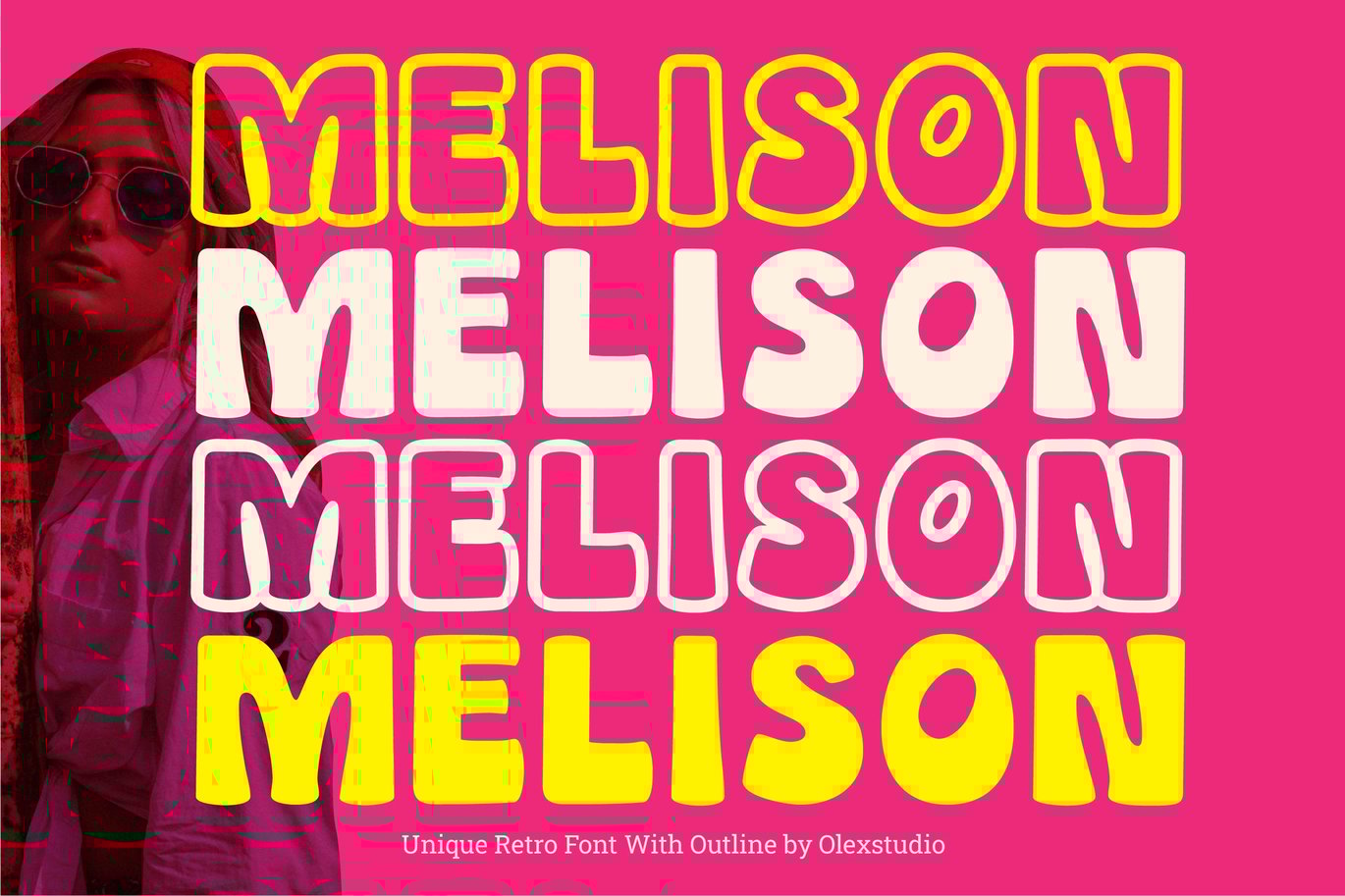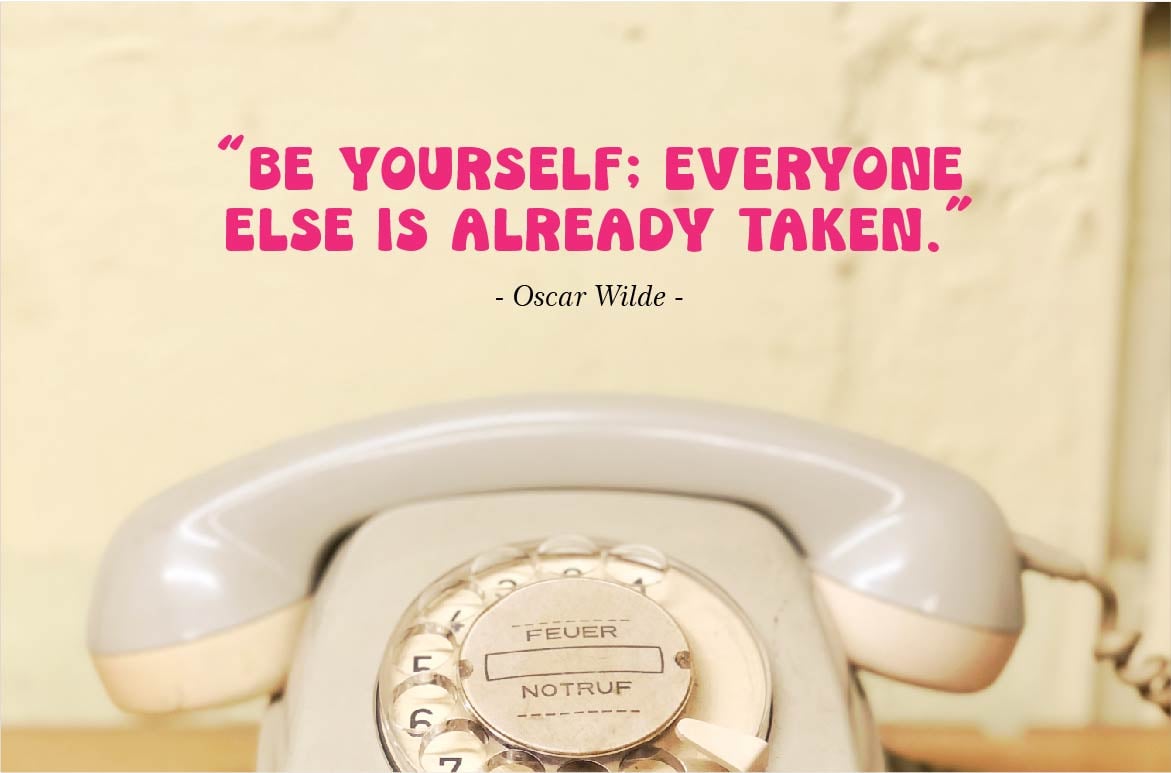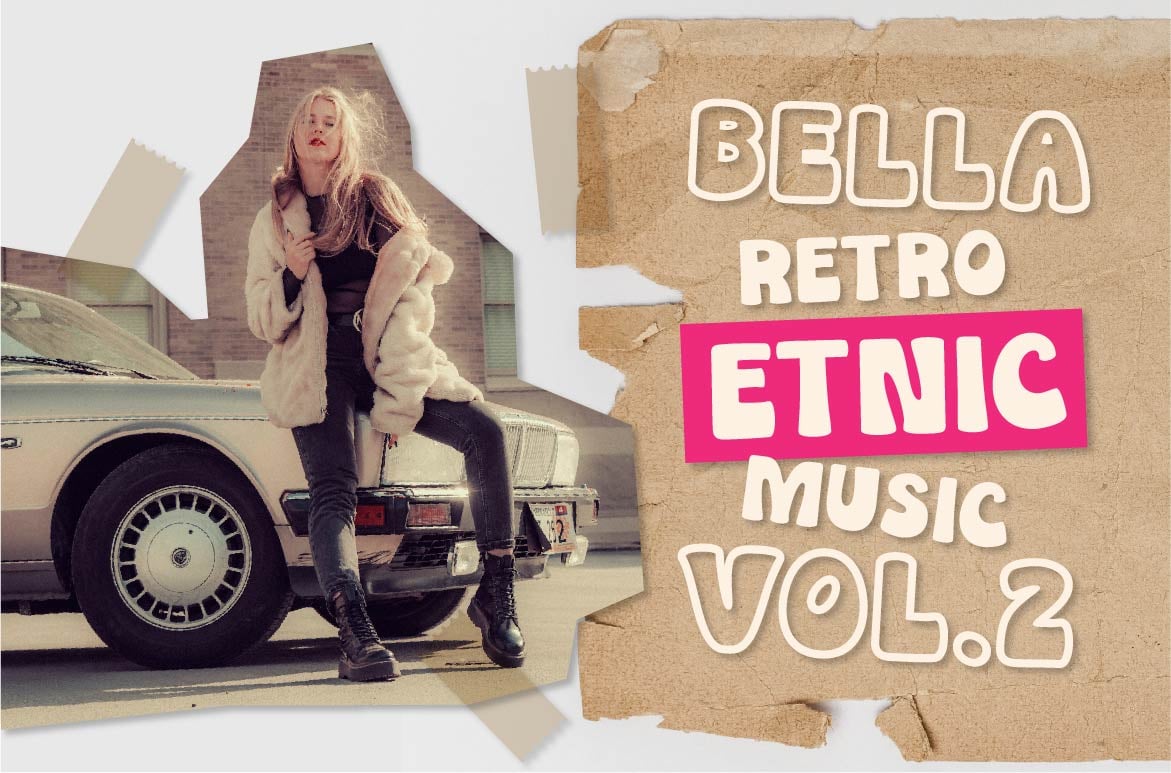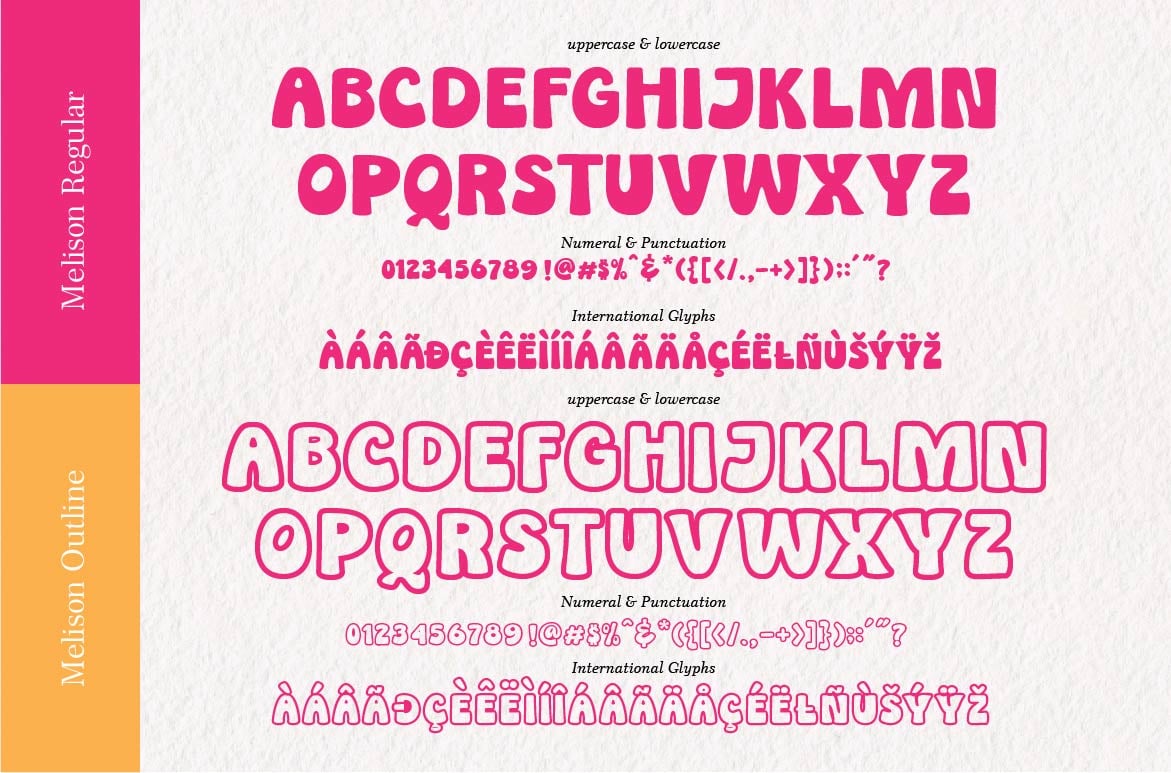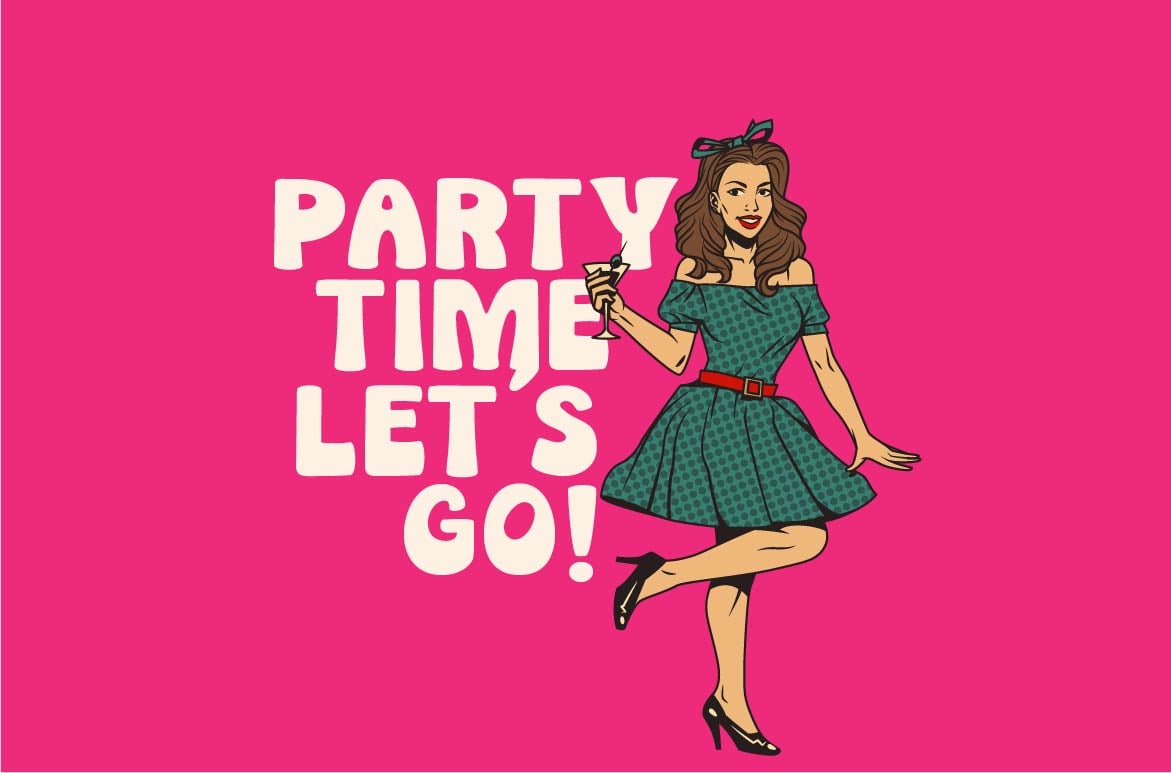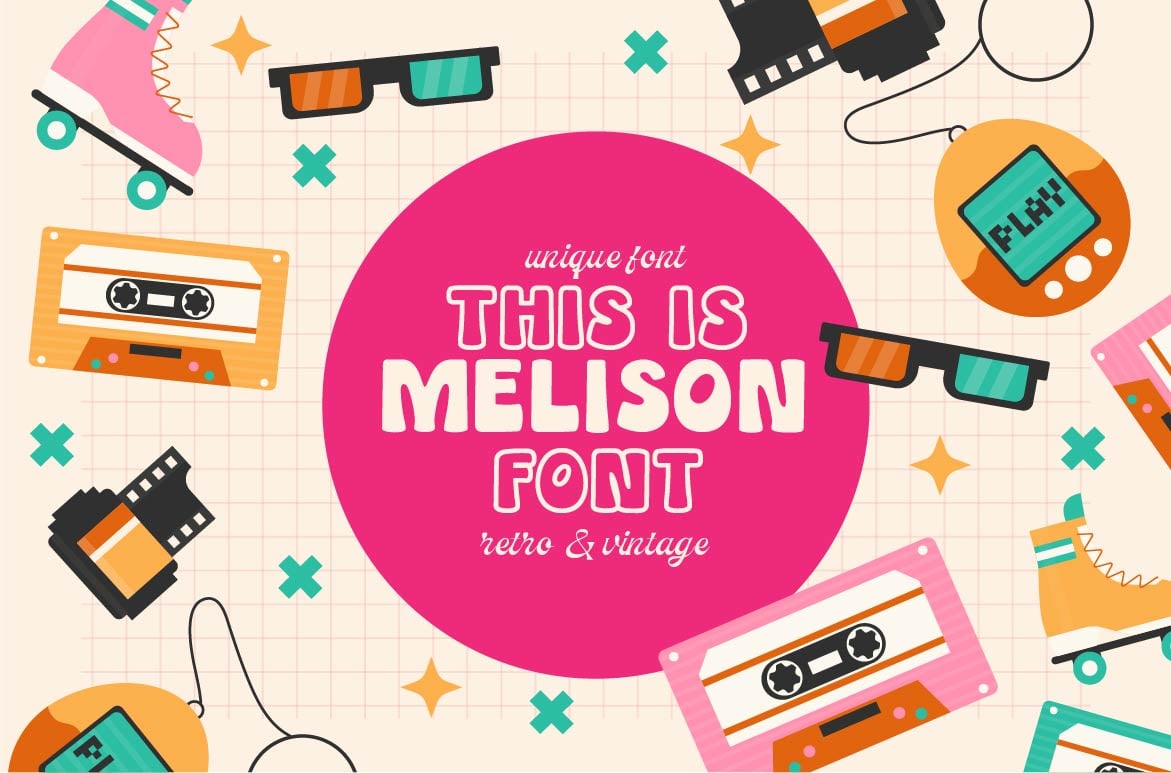
Melison – Retro Font
Melison Retro Display Font will look gorgeous on all your designs, invitation, poster design, book design, branding materials, logo’s, and all project design other.
Melison Retro Display Font all character is a Uppercase, includes numbers, punctuation, Alternates and international glyphs. You will receive OTF, TTF files & WEBFONT.